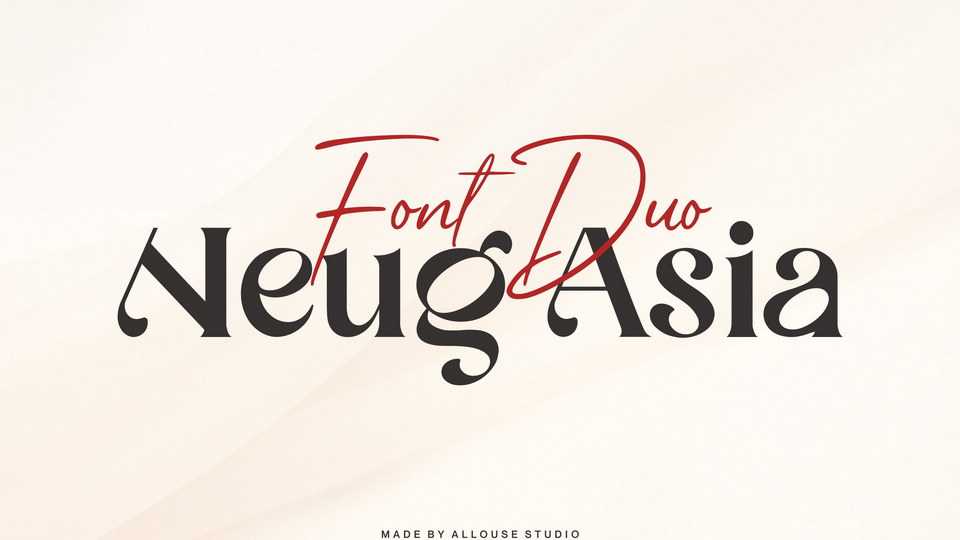
Download Neug Asia typeface, a beautiful and versatile serif and script fonts. Masterfully designed to become a true favorite, Neug Asia has the potential to bring each of your creative ideas to the highest level.
Designer: Allouse Studio